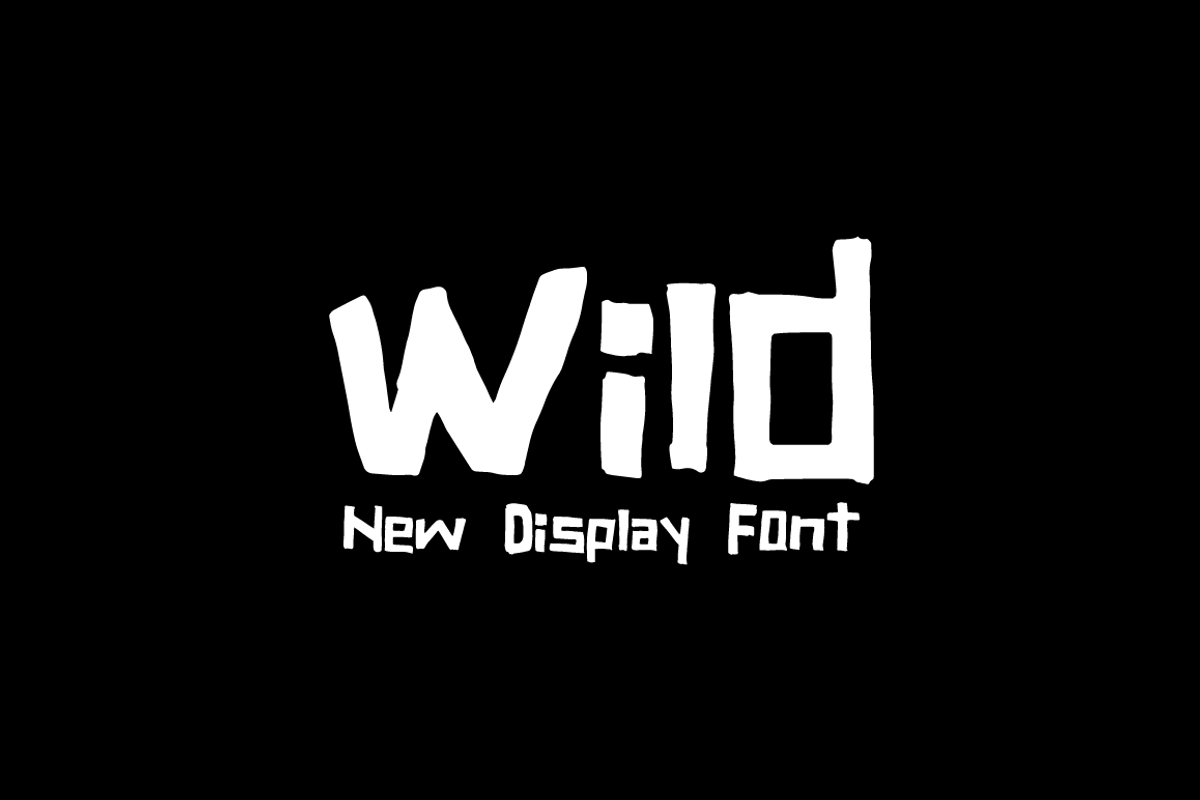
Wild — Block Font Free Download
Wild — Block Font Free Download is a bold and striking typeface that brings an adventurous, rugged feel to your designs. Perfect for logos, posters, headlines, and creative projects, Wild features strong, geometric letterforms that make a lasting impression. Its solid, block-like structure ensures excellent readability while maintaining a dynamic, modern look.